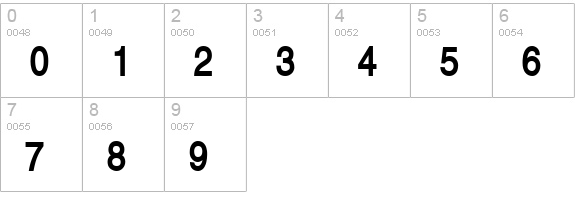
Alps-Condensed Bold Font Details
Alps-Condensed Bold is a strong, high-contrast, condensed-width variant in the Alps typeface family \xE2\x80\x94 well suited to headlines, attention-grabbing titles, and strong calls-to-action.
Alps-Condensed Bold font is a modern and versatile typeface that exudes a sense of strength and sophistication. Its bold and condensed design makes it perfect for headlines, logos, and other attention-grabbing text. The strong, clean lines of this font give it a professional and polished look that is sure to make your designs stand out. Best of all, Alps-Condensed Bold font is available for free download at FontsMarket.com. This means you can easily add this stylish and impactful font to your design arsenal without breaking the bank. Don't miss out on the opportunity to enhance your projects with the bold and dynamic aesthetic of Alps-Condensed Bold font - download it for free today!